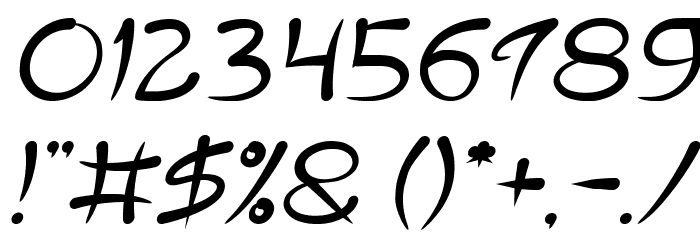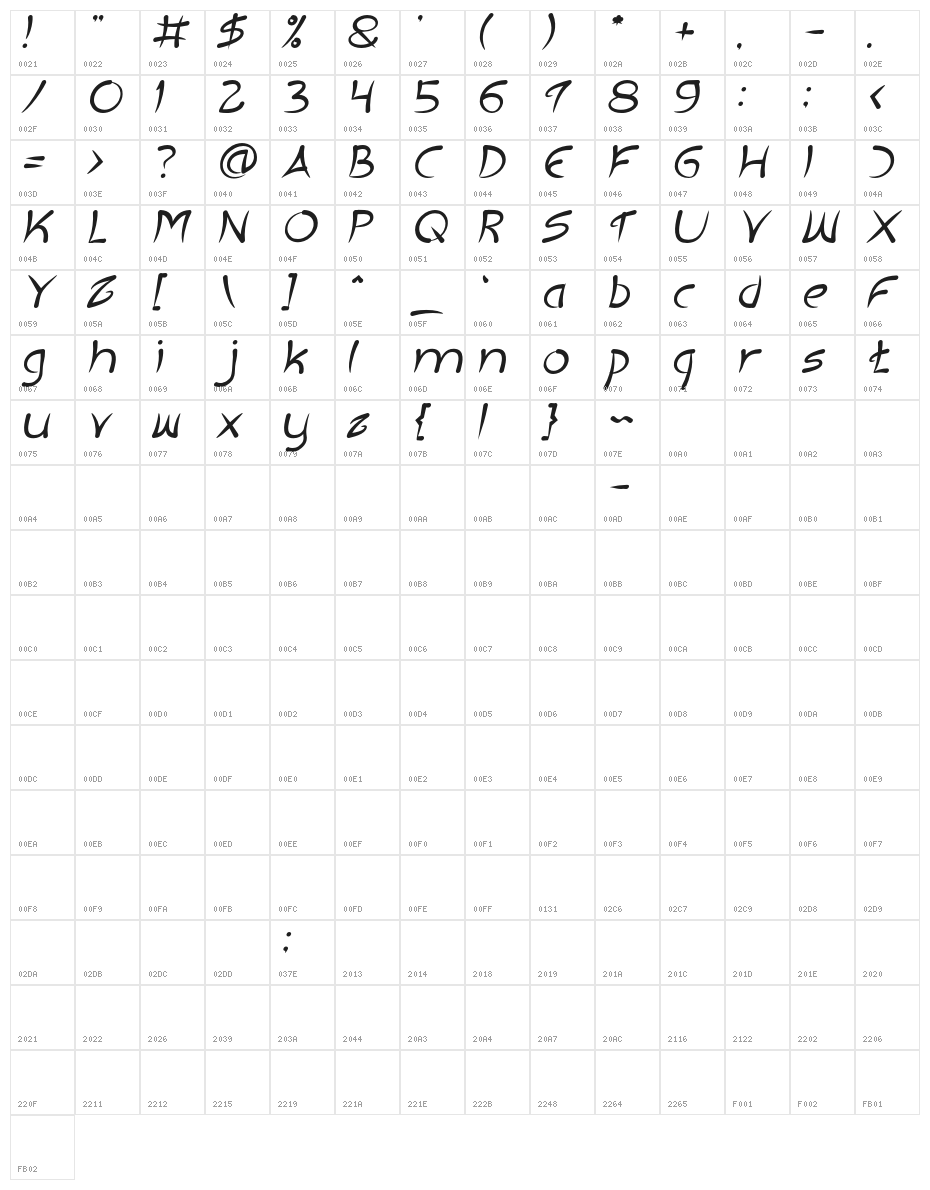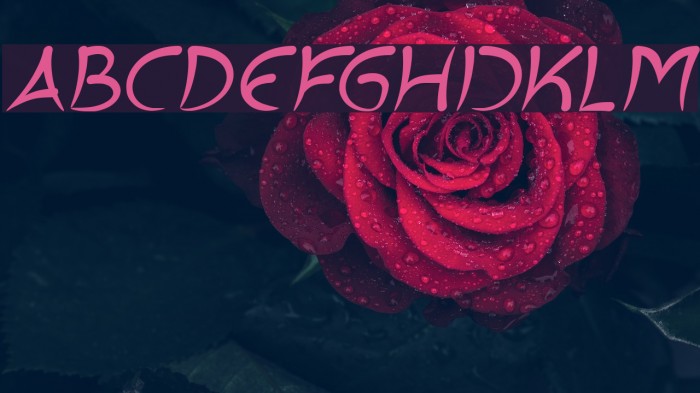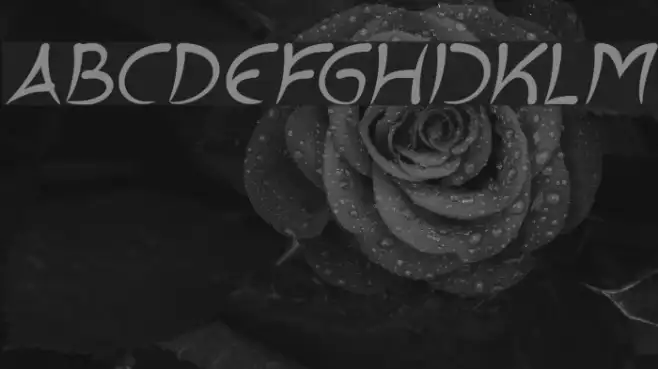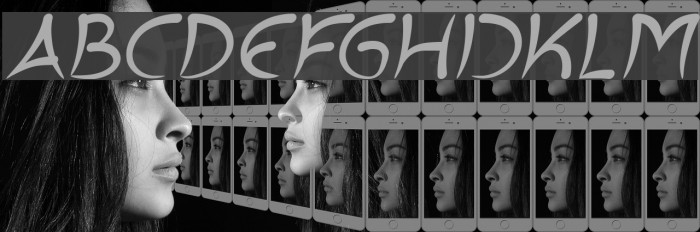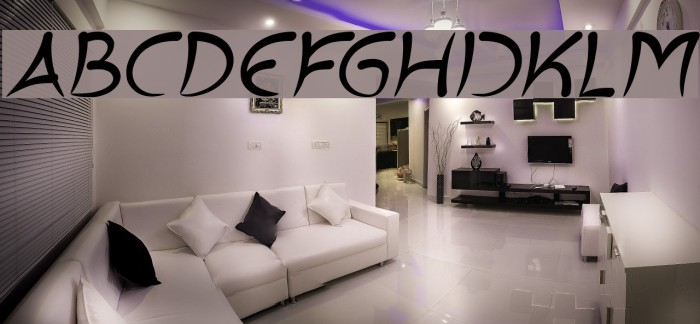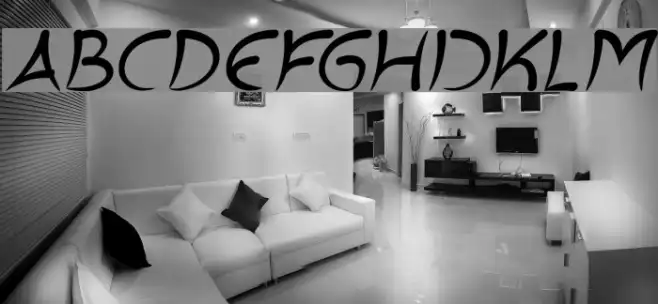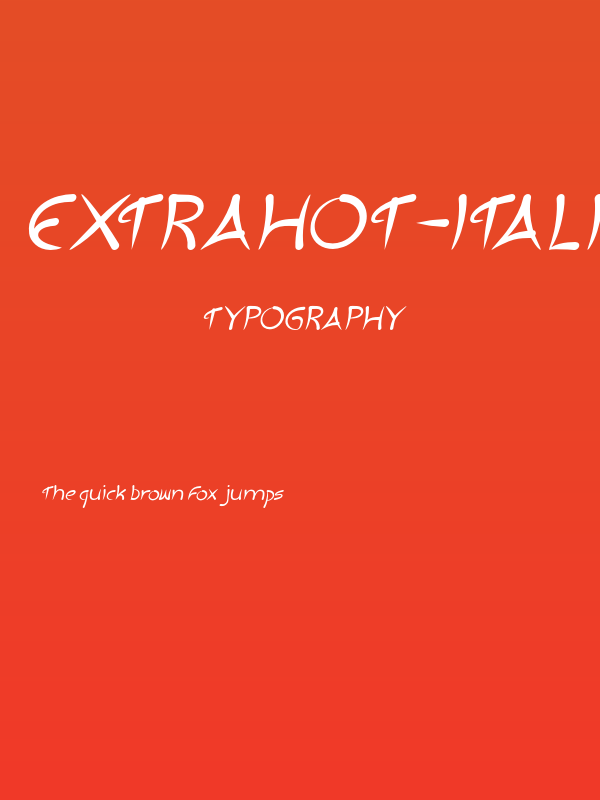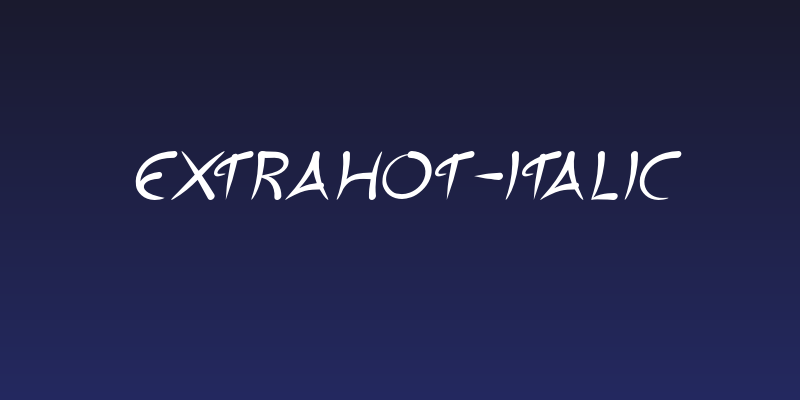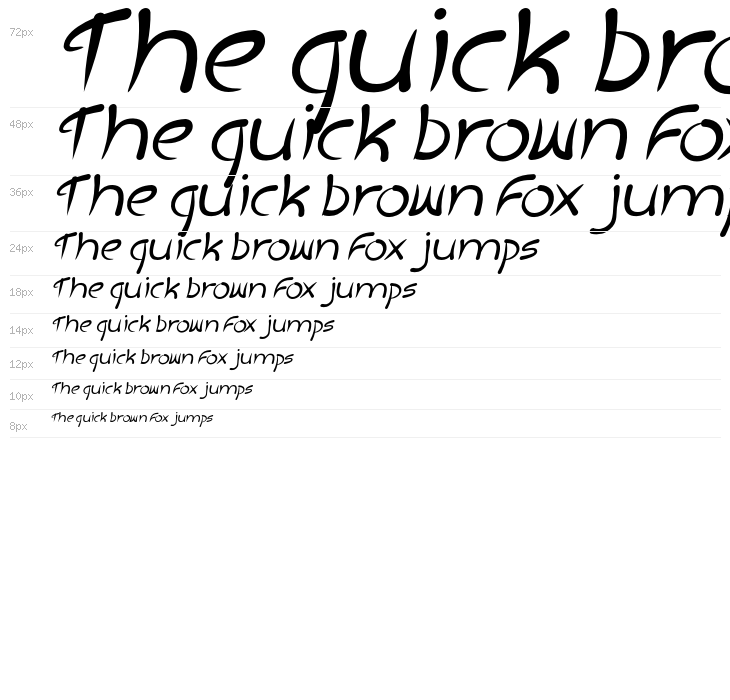
ExtraHot-Italic Font
ExtraHot-Italic Description
This font features a dynamic and energetic style with a handwritten appearance. The characters are fluid and slightly slanted, giving an italicized effect that enhances its expressive nature. The strokes vary in thickness, adding a lively contrast and a sense of movement. The uppercase letters are bold and prominent, while the lowercase letters maintain a consistent flow, making it suitable for creative and informal designs. The numerals and special characters are crafted with the same playful and artistic flair, ensuring a cohesive look across all text elements.
Use CaseHeadlines, Logos, Creative projects
Proposed ProjectsIdeal for creative projects such as greeting cards, invitations, posters, and branding materials that require a personal touch.